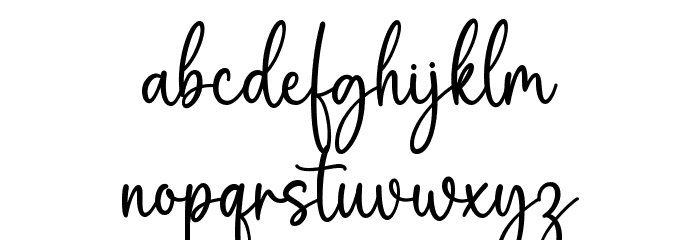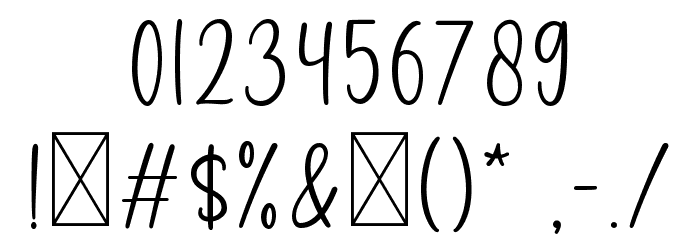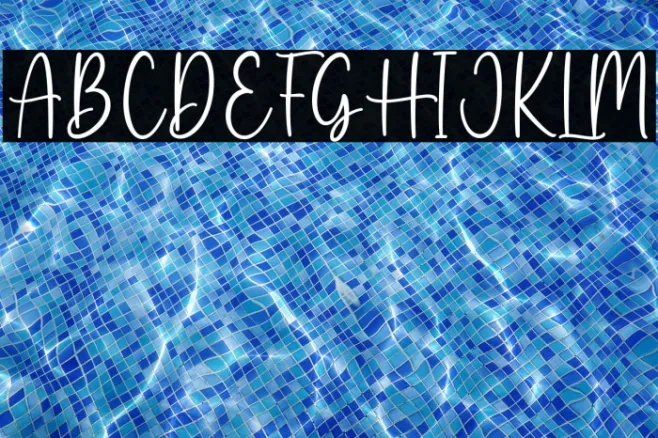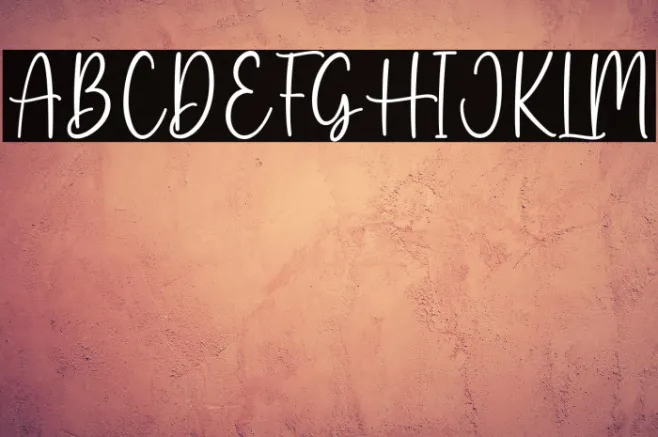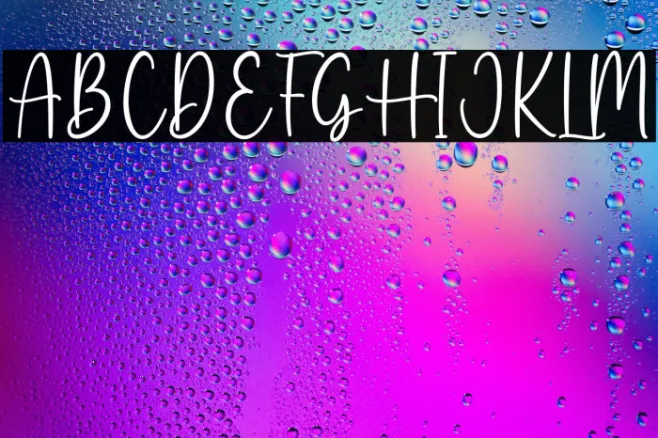
Friendship Font
This font features a playful and casual handwritten style, characterized by its smooth, flowing lines and slightly irregular shapes. The uppercase letters are tall and narrow, with a whimsical flair that adds a touch of personality. The lowercase letters maintain a consistent style, with rounded edges and a natural, fluid motion that mimics real handwriting. The numerals are clear and legible, matching the overall aesthetic with their slightly uneven strokes. Special characters are creatively designed, maintaining the playful essence of the font. This style is perfect for projects that require a personal and friendly touch.
A playful, casual handwritten font with smooth, flowing lines.
- Font: Friendship
- Proposed Projects: Ideal for greeting cards, invitations, personal branding, and social media graphics.
- Category: Handwritten
- Overall Style: Casual, Playful
- Use Case: Headlines, Logos, Invitations